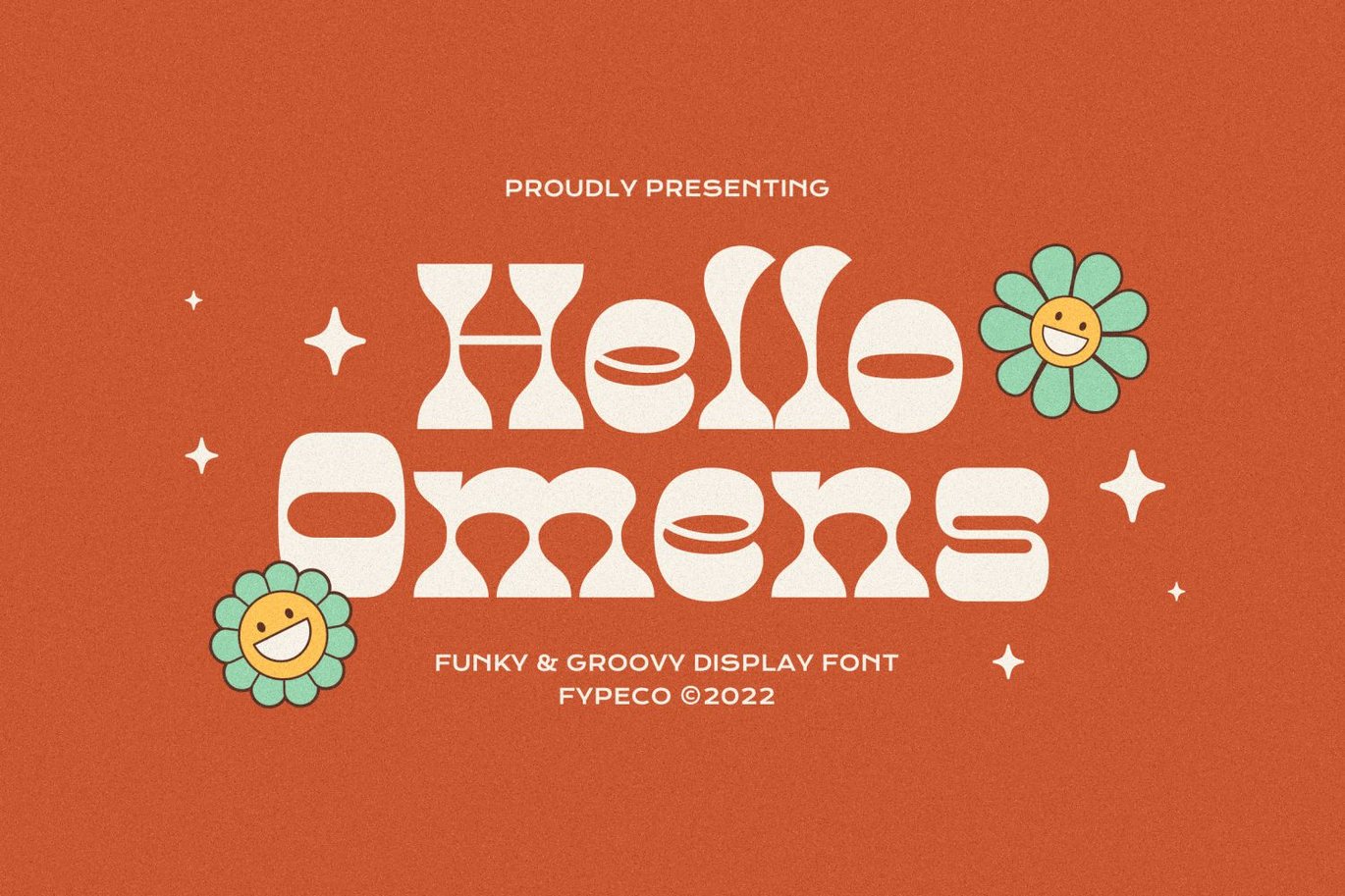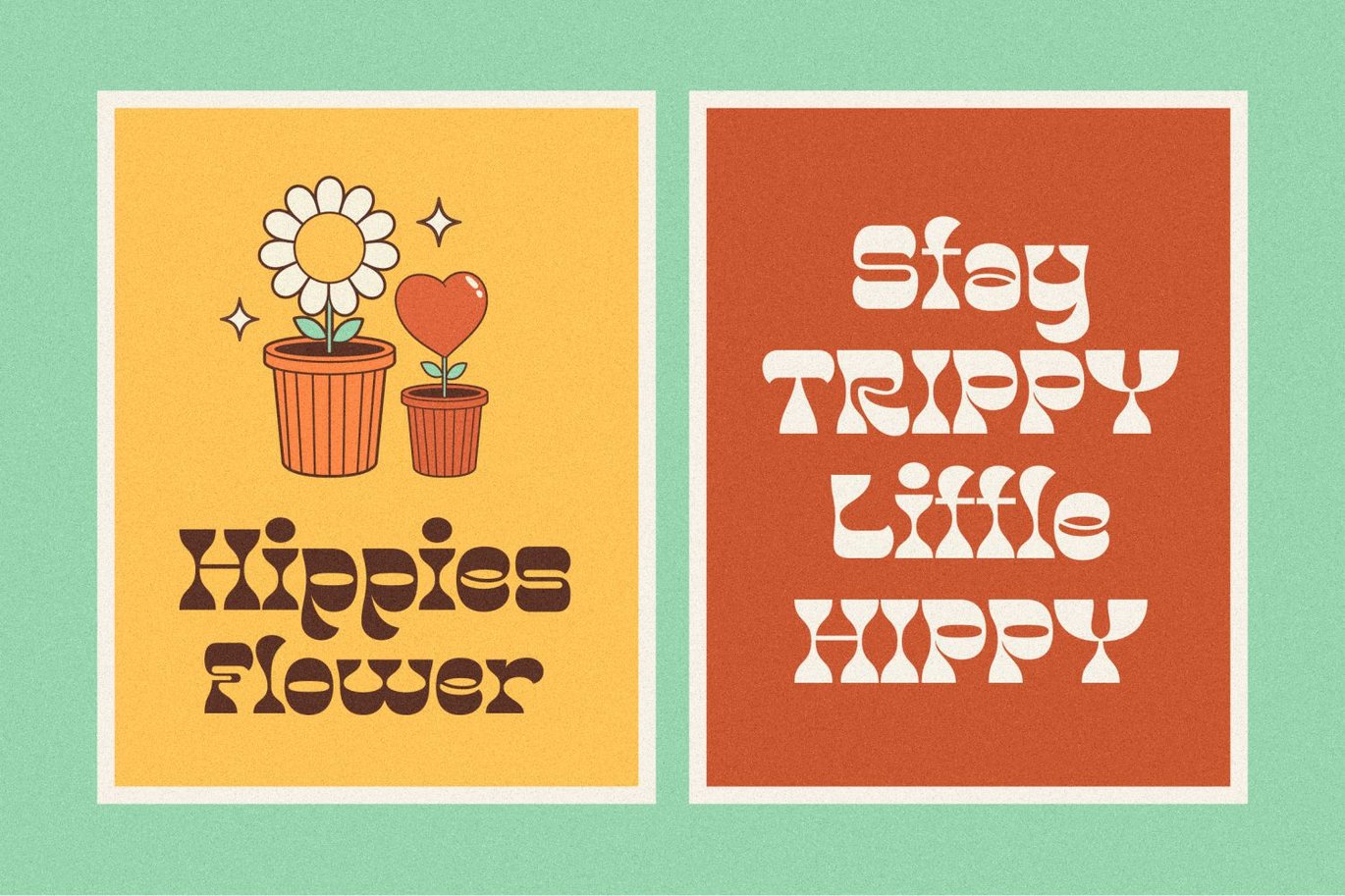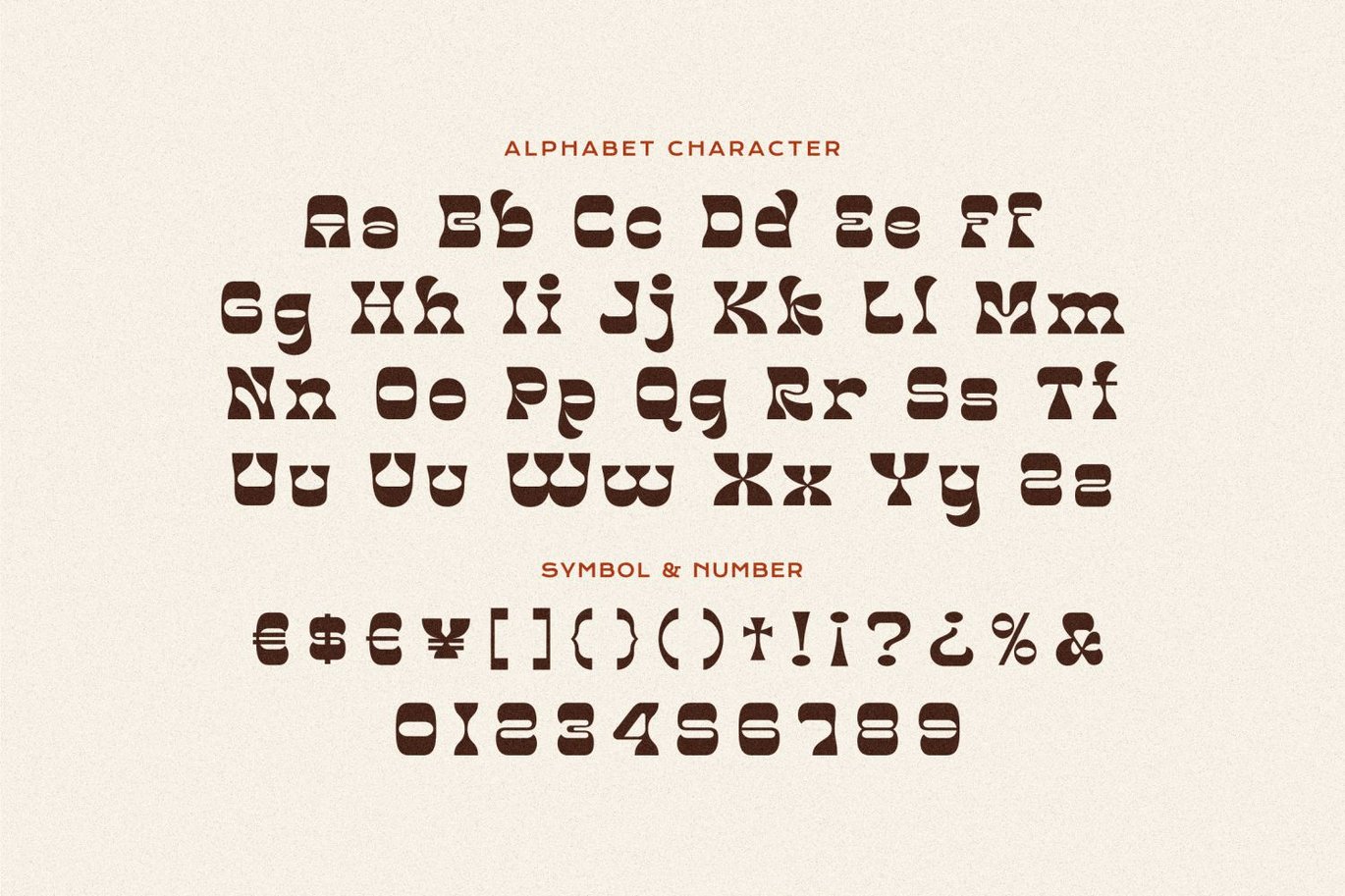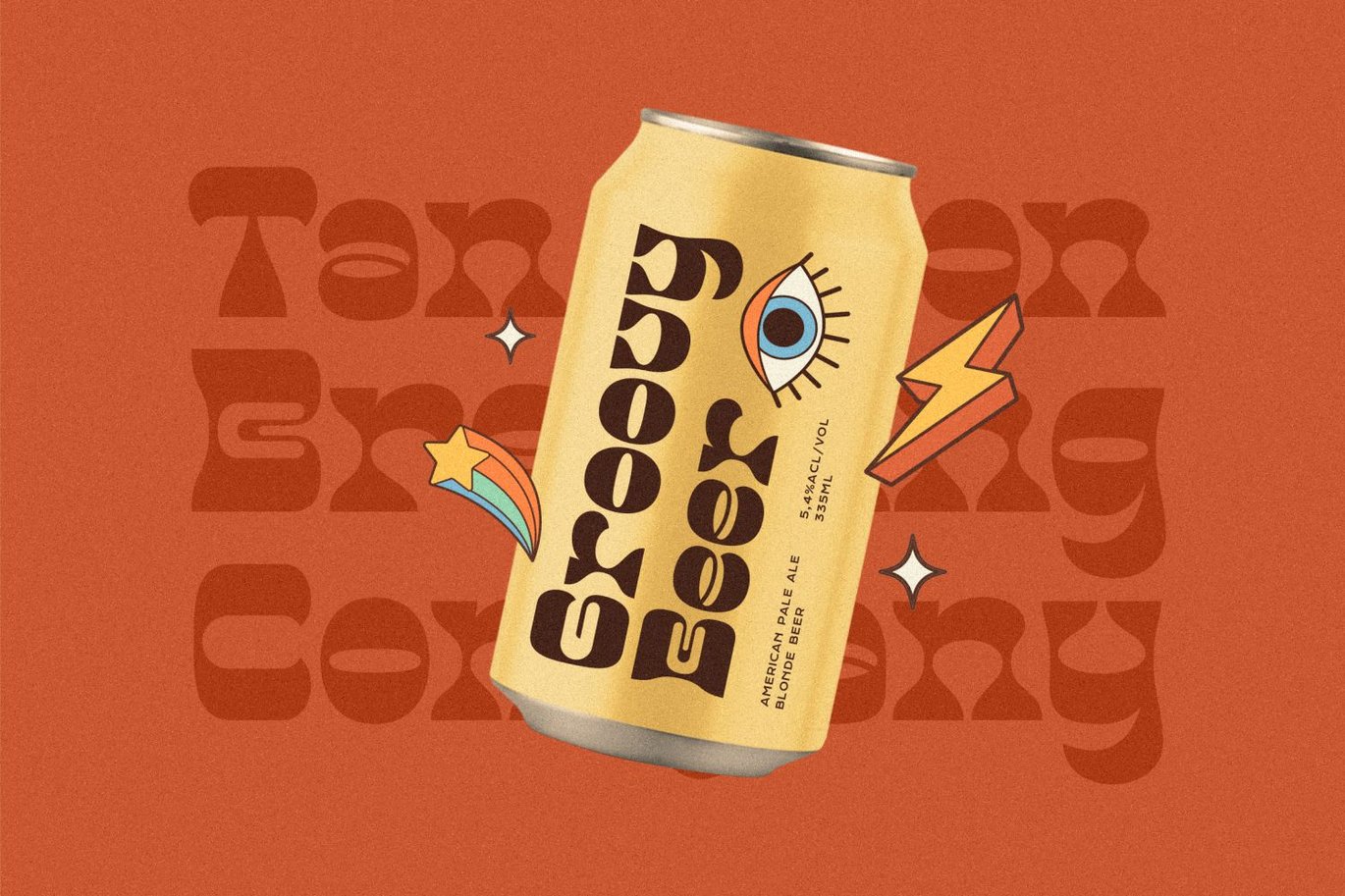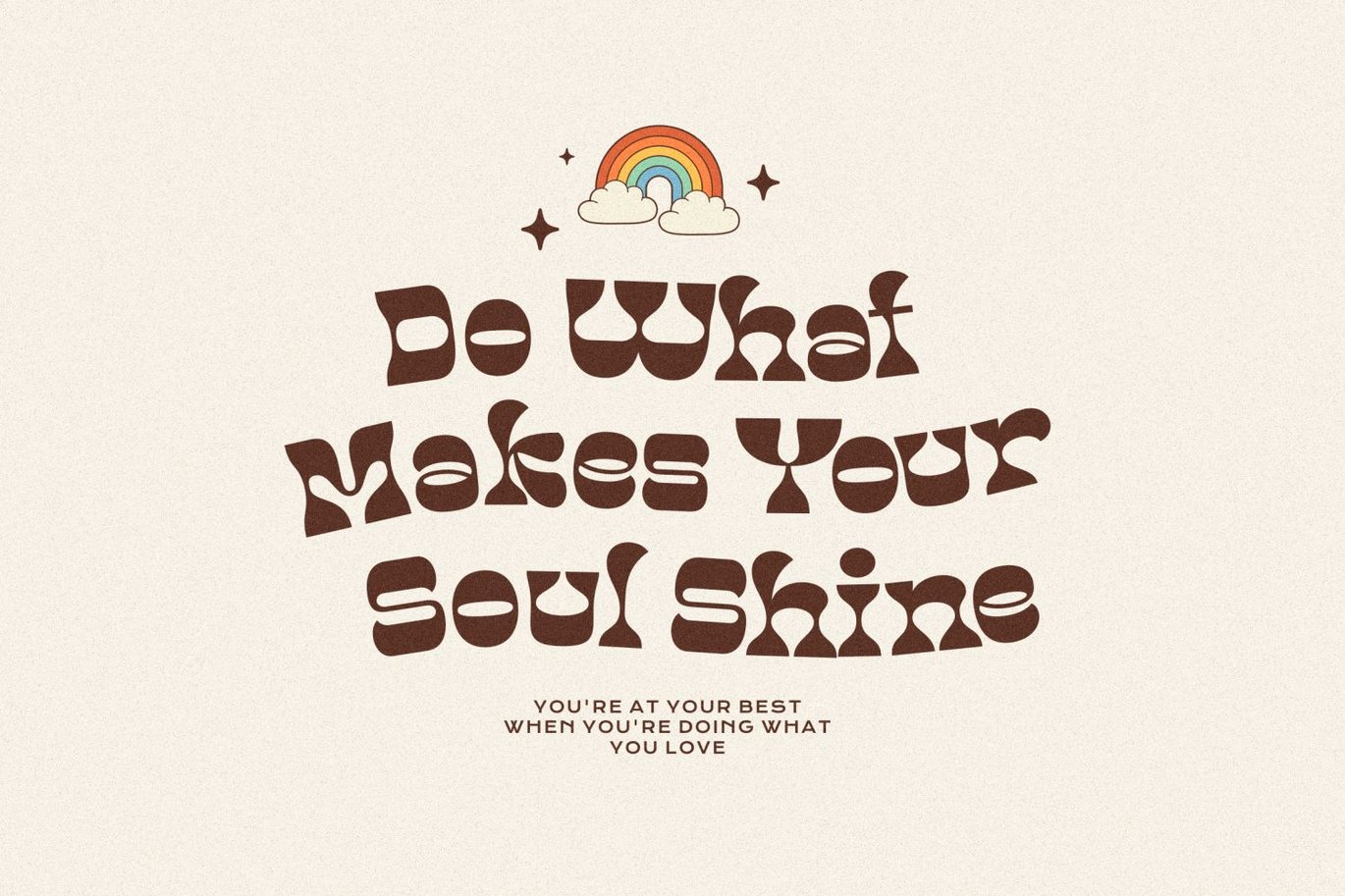
Hello Omens – Funky Groovy Font
Hello Omens is a unique font with a groovy retro vibes. This lettering style conjures up the early 1970s and the whimsical post-psychedelic graphic era. Perfect for make any project like header, quote, layout magazine and other. Even better if you use it on 70s design project
Font Features
-Uppercase
-Lowercase
-Alternatives
-Ligatures
-Numerals & Punctuation
-Multilingual Support